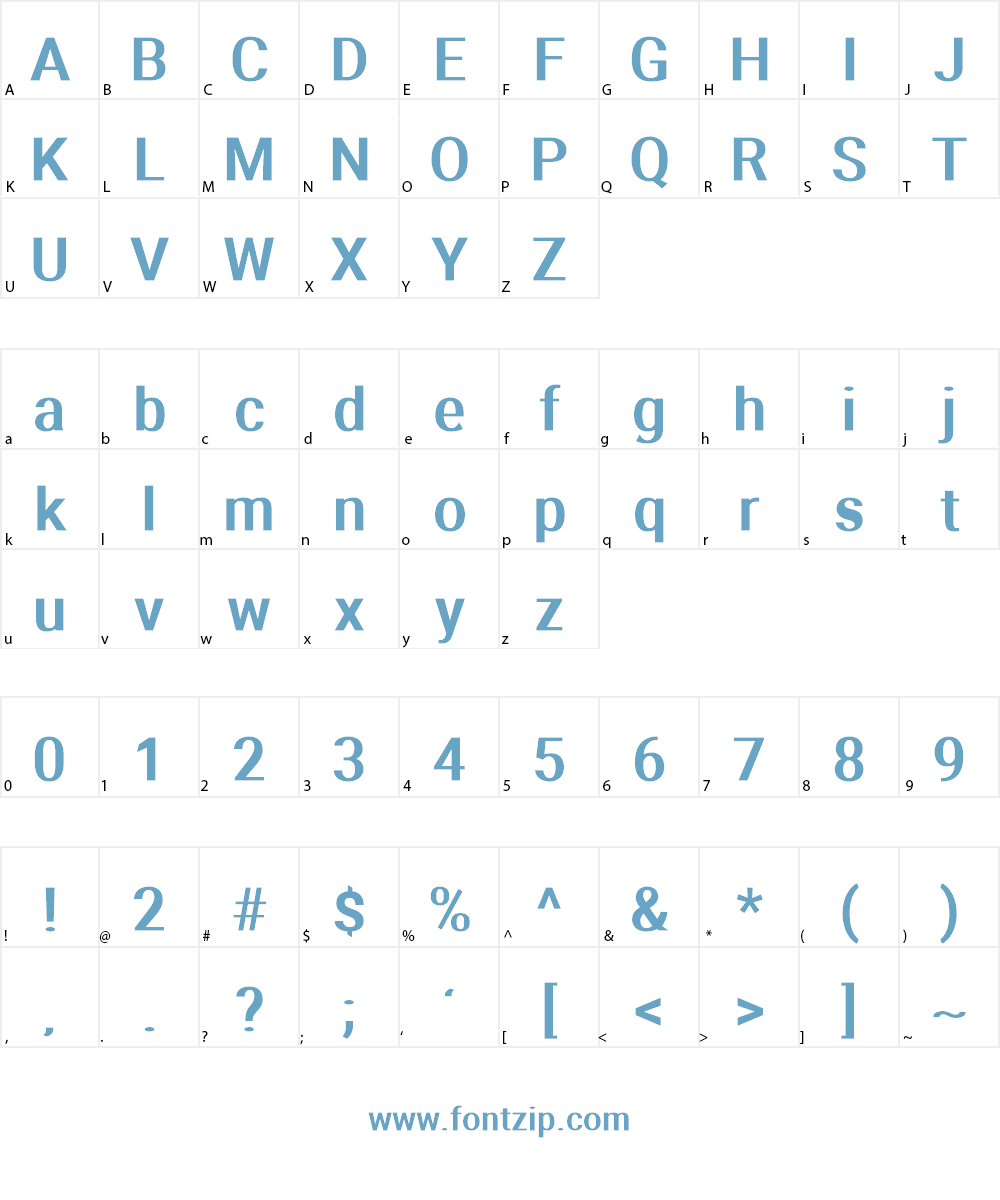
Aerodynamic is a new derivative of the Apache Licensed open-source font, Roboto.
Modifications and additions by Cannot Into Space Fonts.
Update: Bold Weight and matching Oblique Italic added.